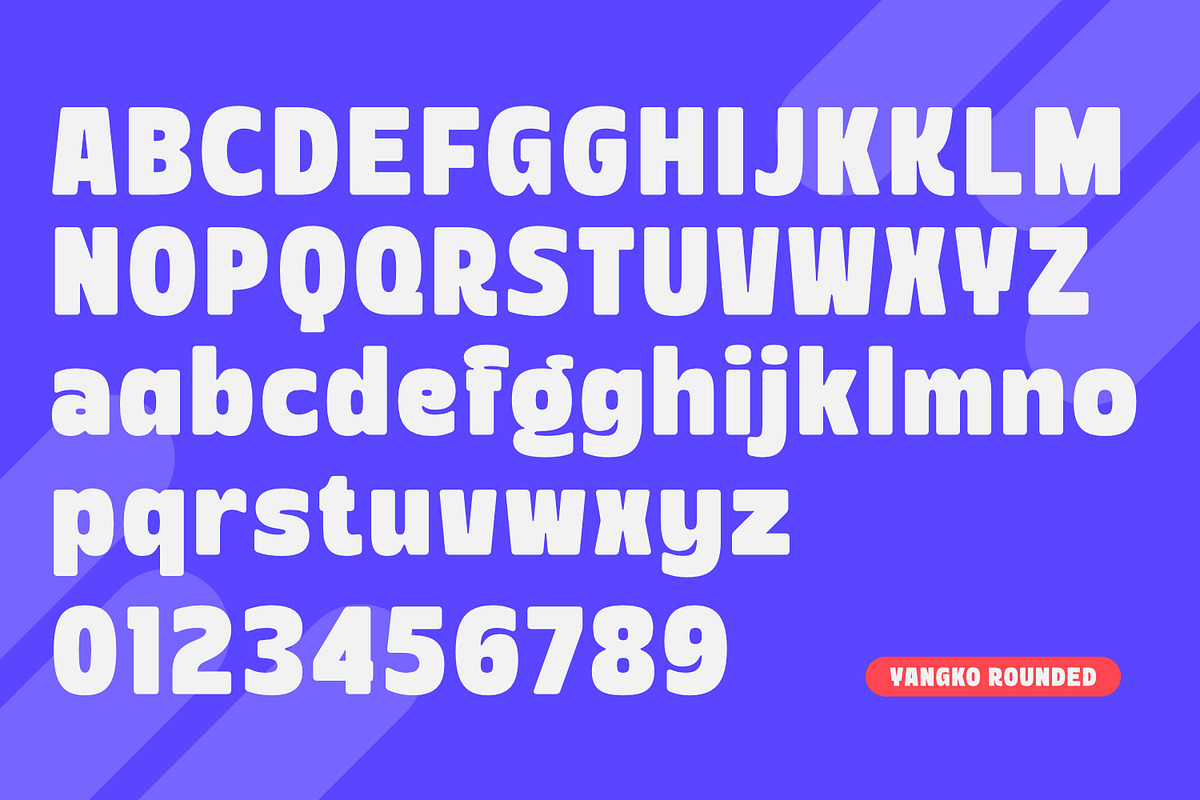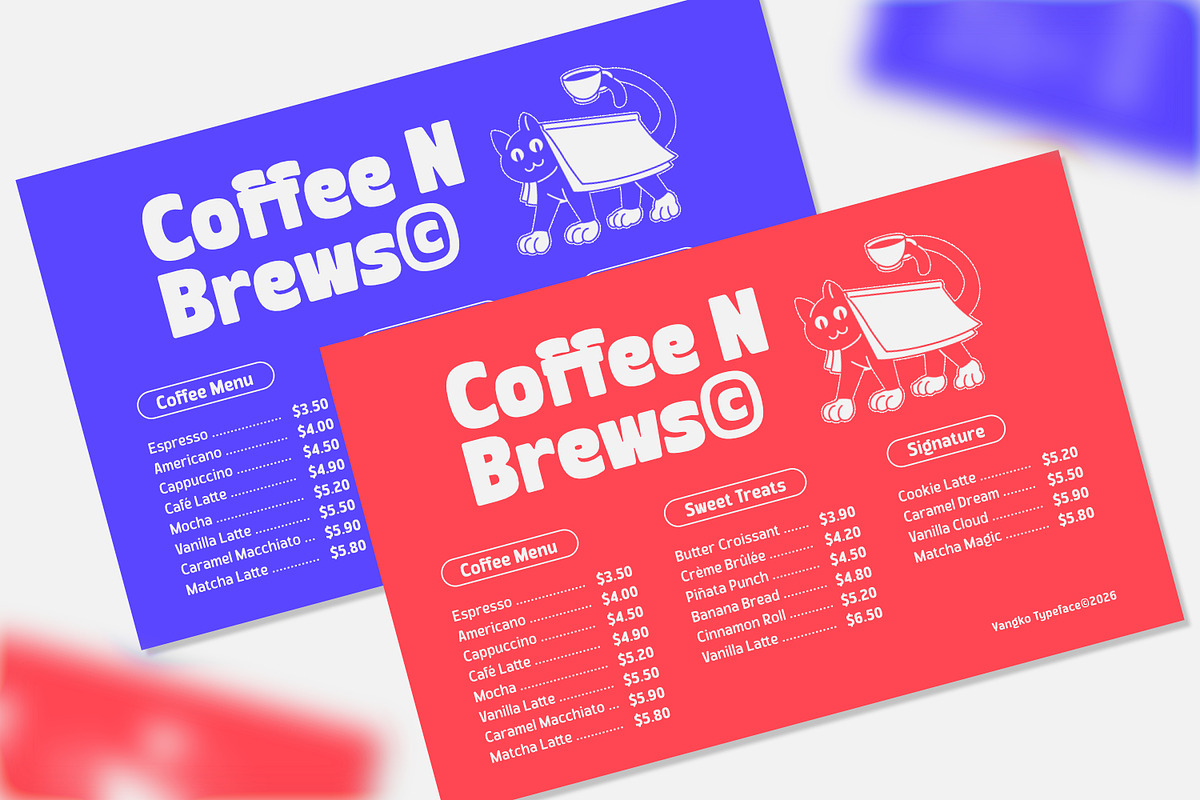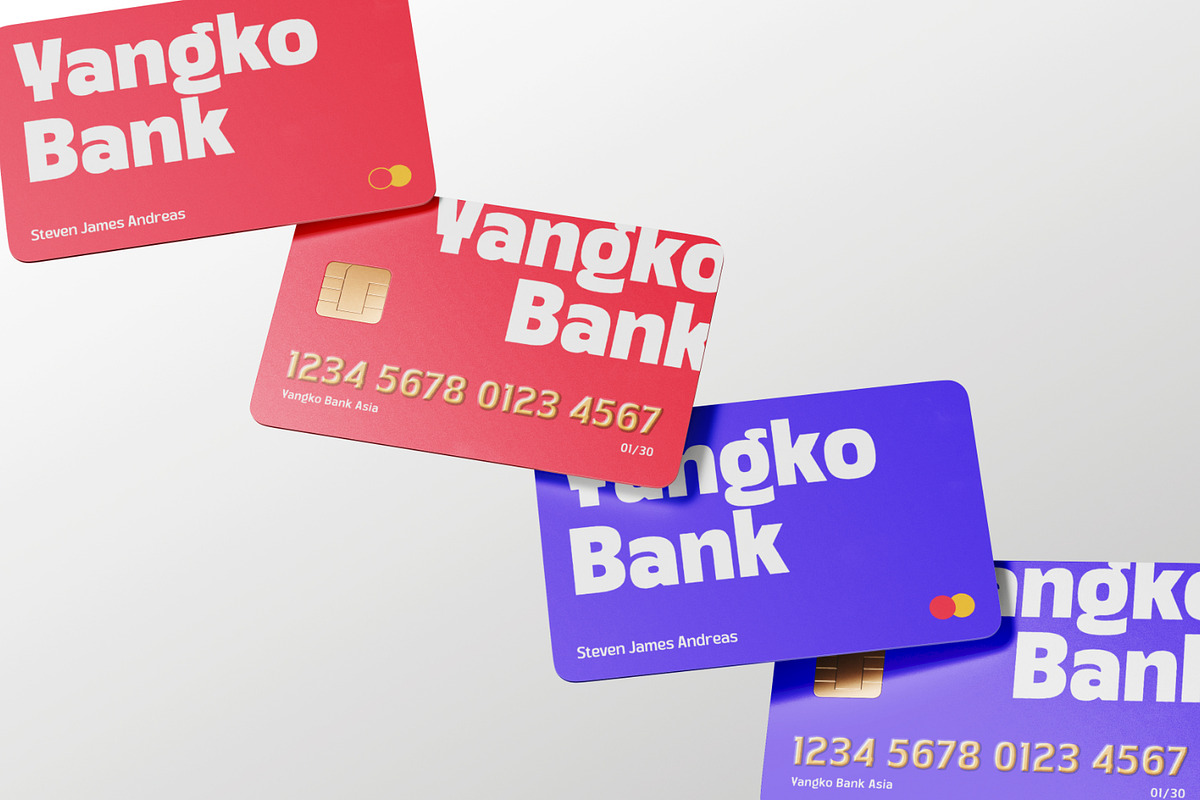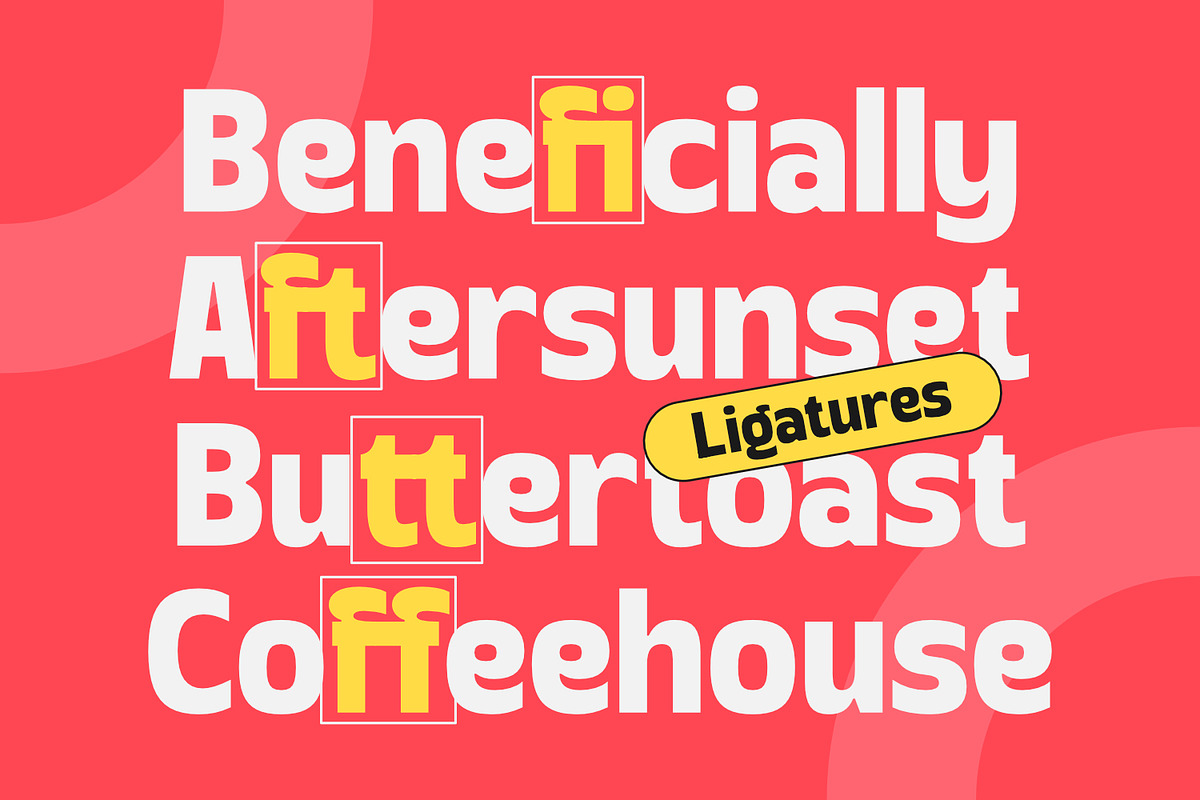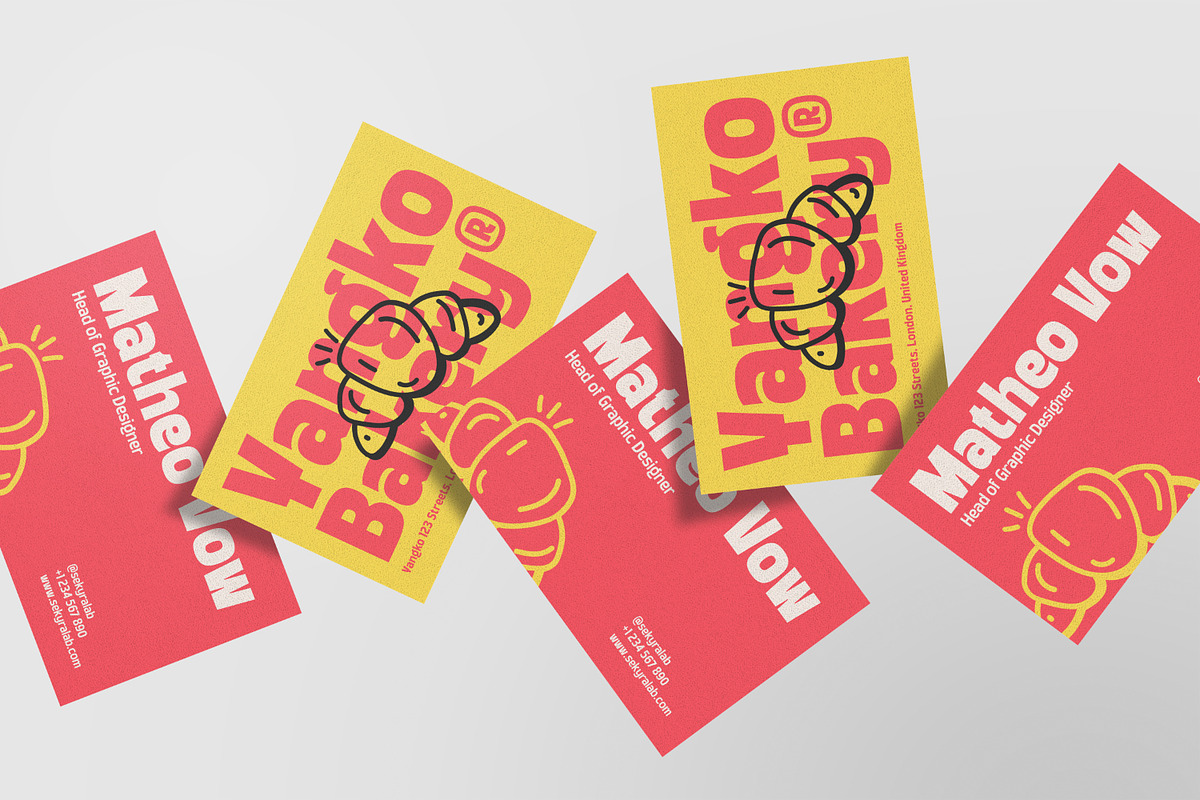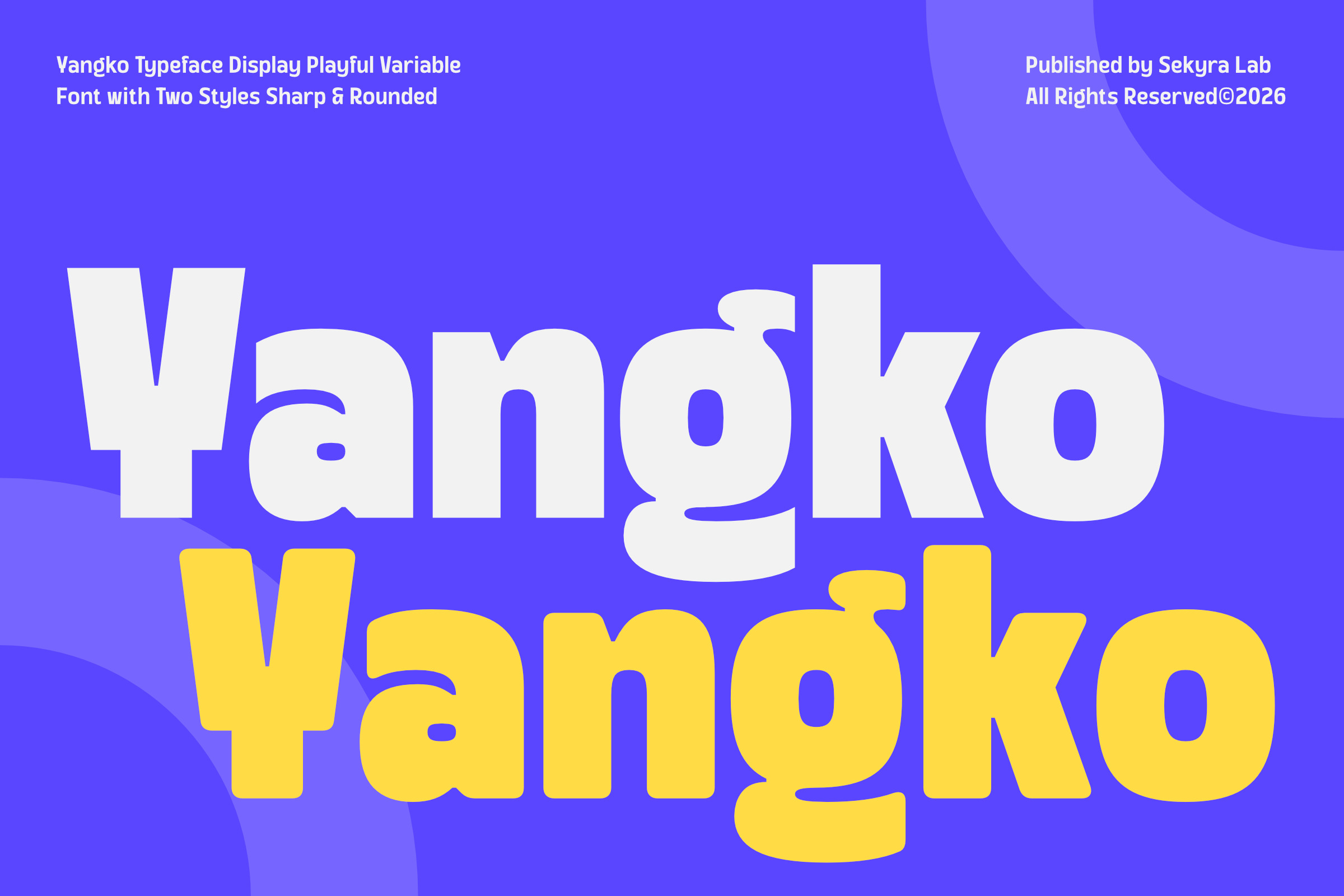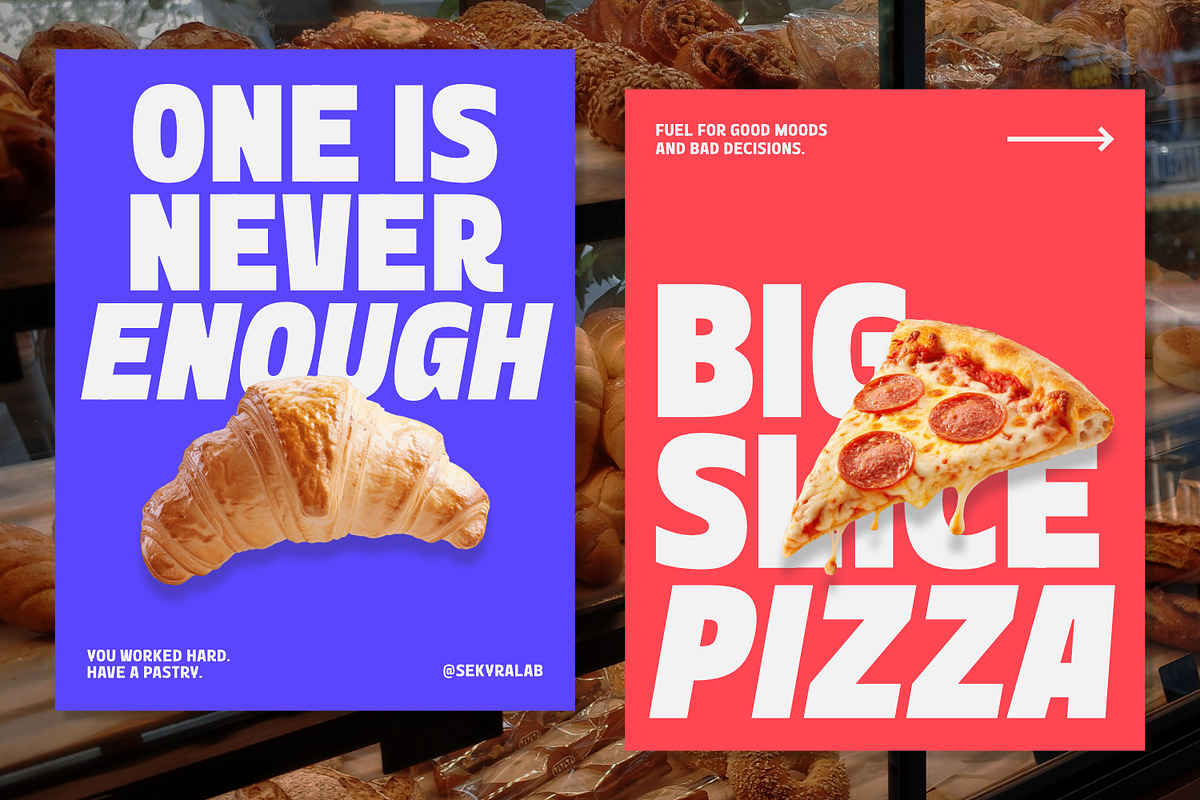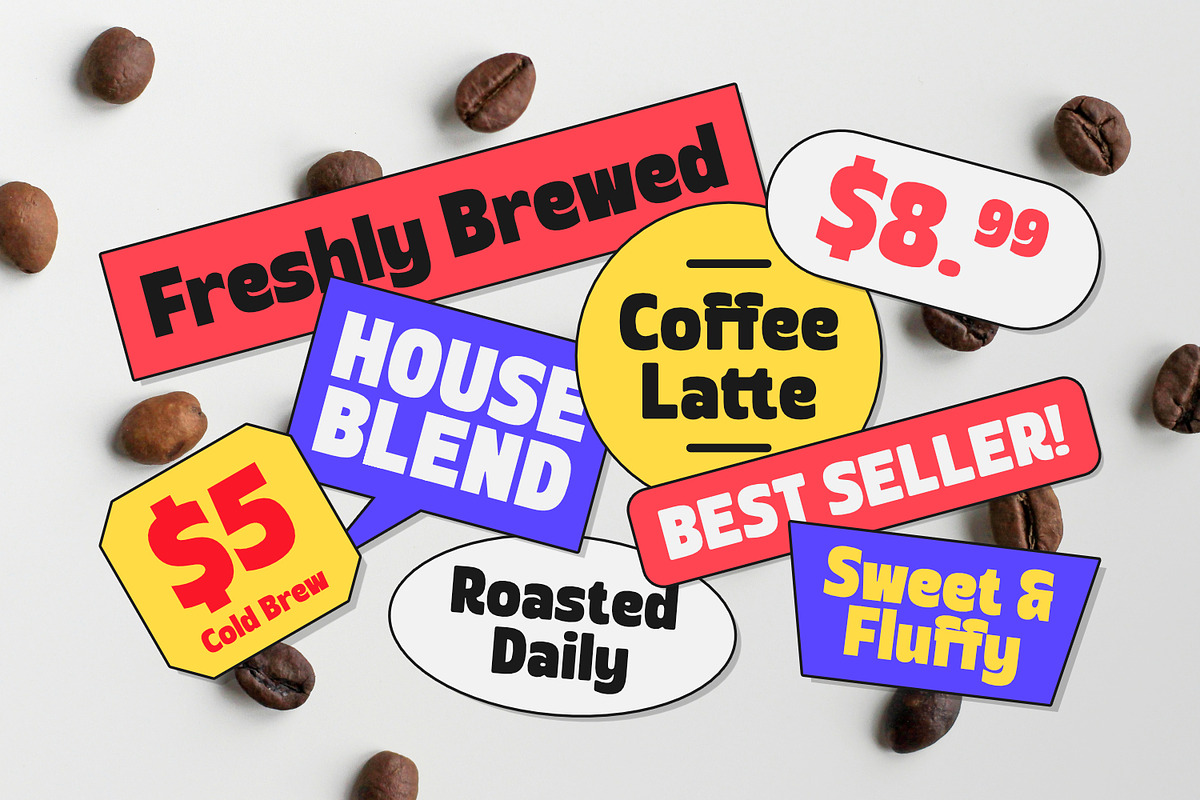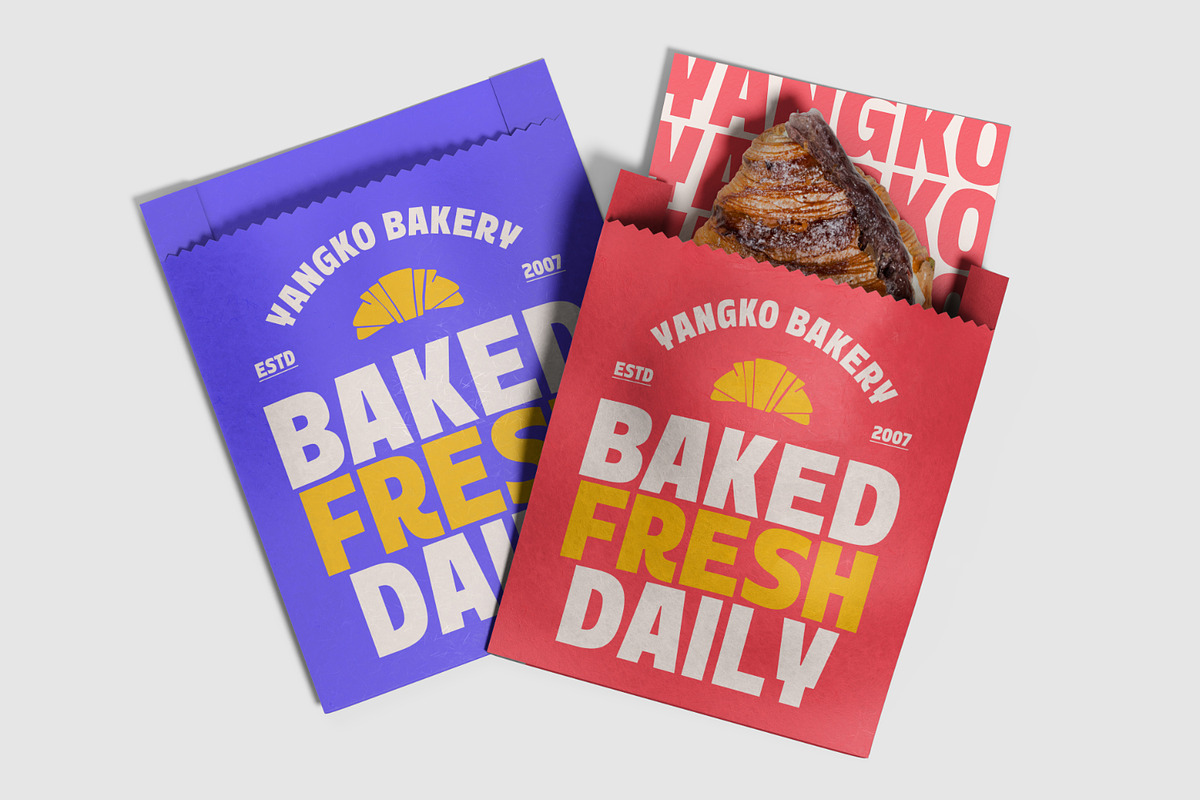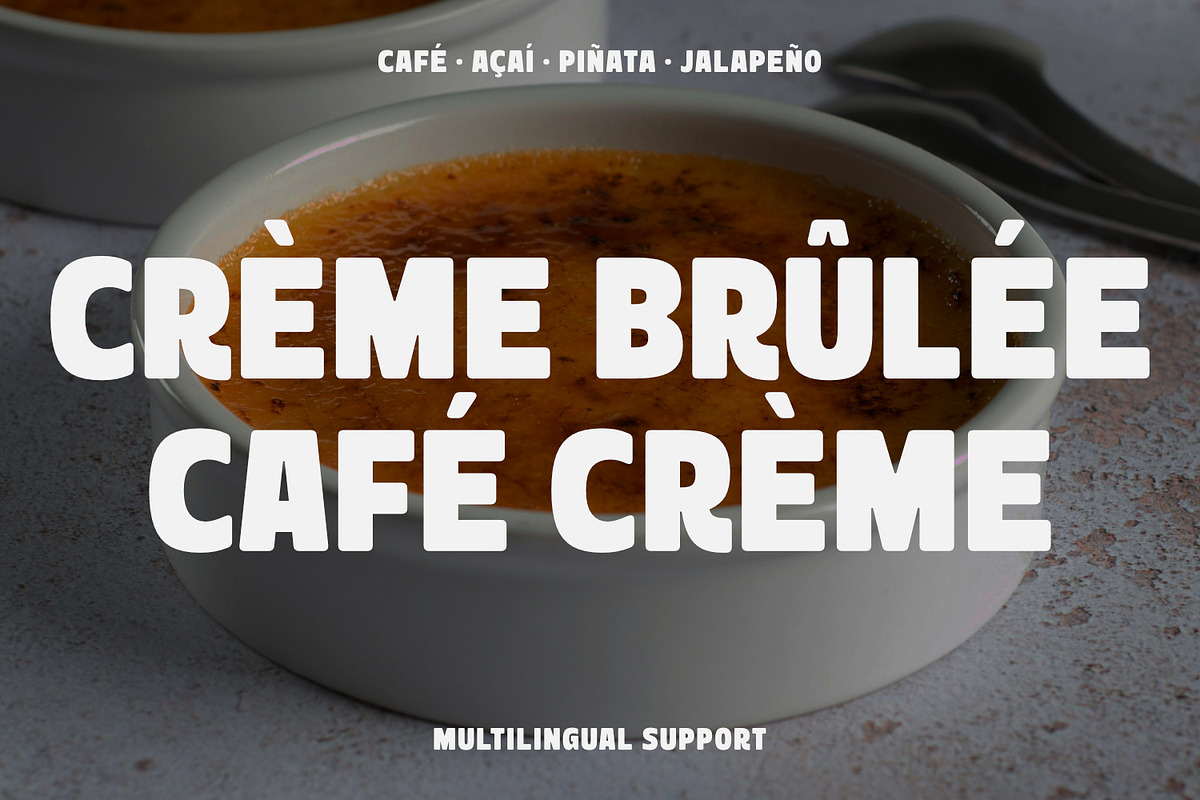
Yangko – Playful Display Font Family
Yangko is a playful display font family designed to bring energy, friendliness, and bold character to your creative projects. Featuring both Sharp and Rounded personalities, Yangko combines chunky letterforms, expressive curves, and strong visual impact, making it ideal for branding, packaging, posters, social media graphics, children's products, food and beverage designs, and modern advertising.
The family includes 6 weights from Light to Extra Bold and 4 styles: Regular, Oblique, Rounded, and Rounded Oblique. With multilingual support, stylistic ligatures, and variable font functionality, Yangko offers maximum flexibility while maintaining a fun and memorable appearance.
6 Weights (Light, Regular, Medium, Semi Bold, Bold, Extra Bold)
4 Styles (Regular, Oblique, Rounded, Rounded Oblique)
Variable Font Included